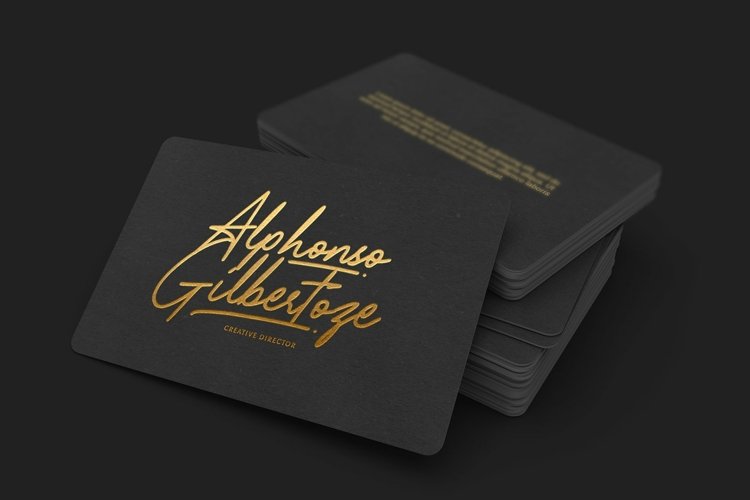
Web Font Raptors is a signature script typeface. Perfect for display, poster, quotes, film, craft needs, book cover, business card, packaging, merchandise, branding, logo, logotype, header, title, and many more.